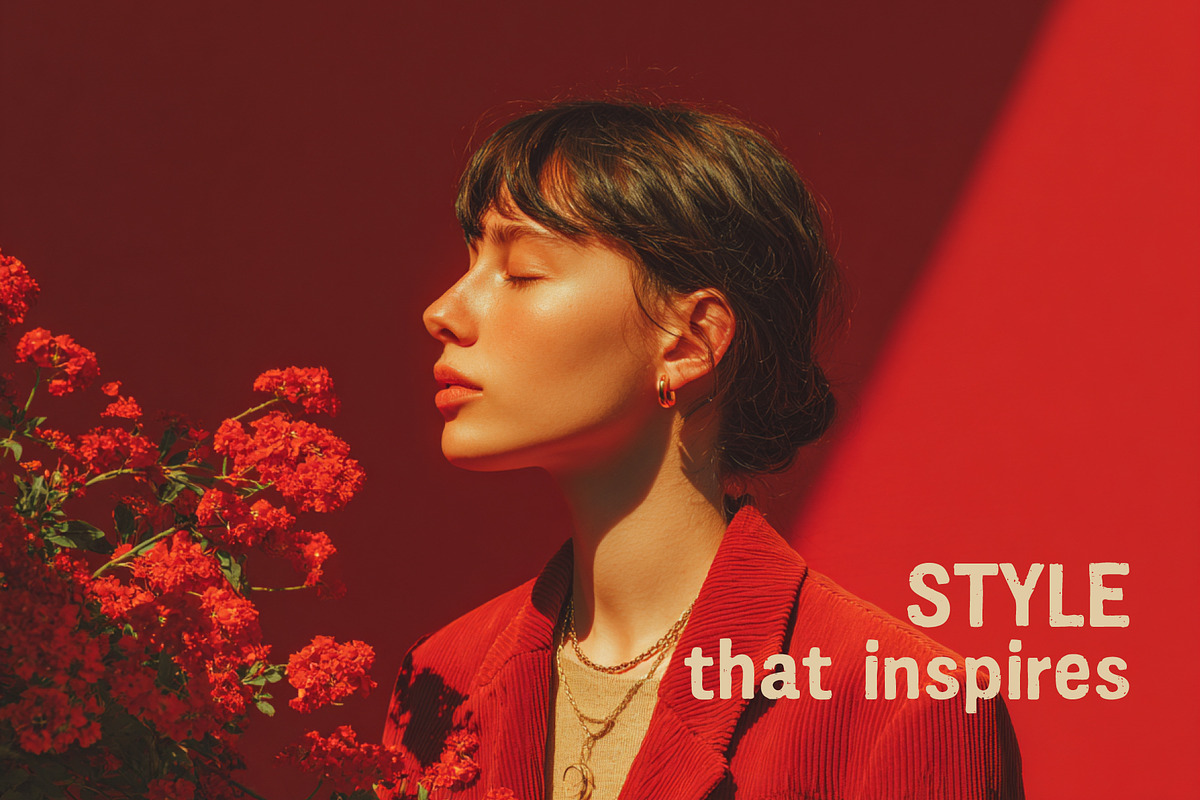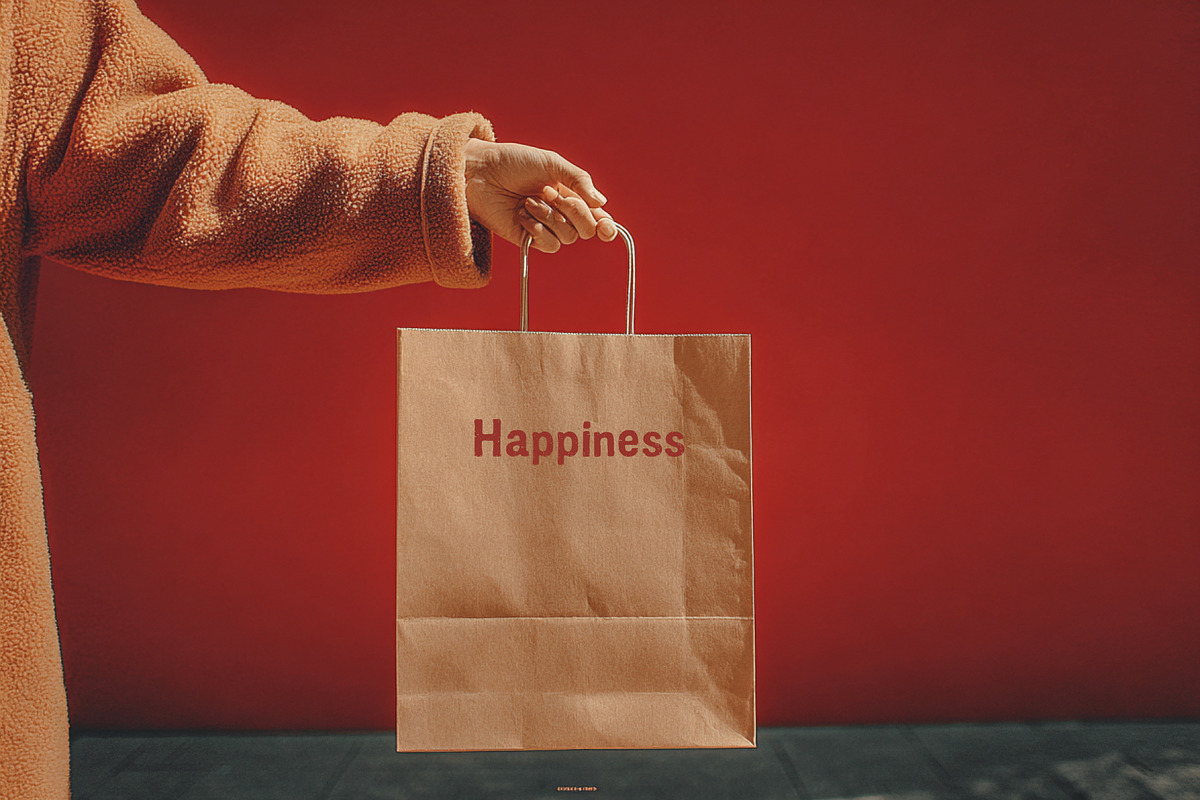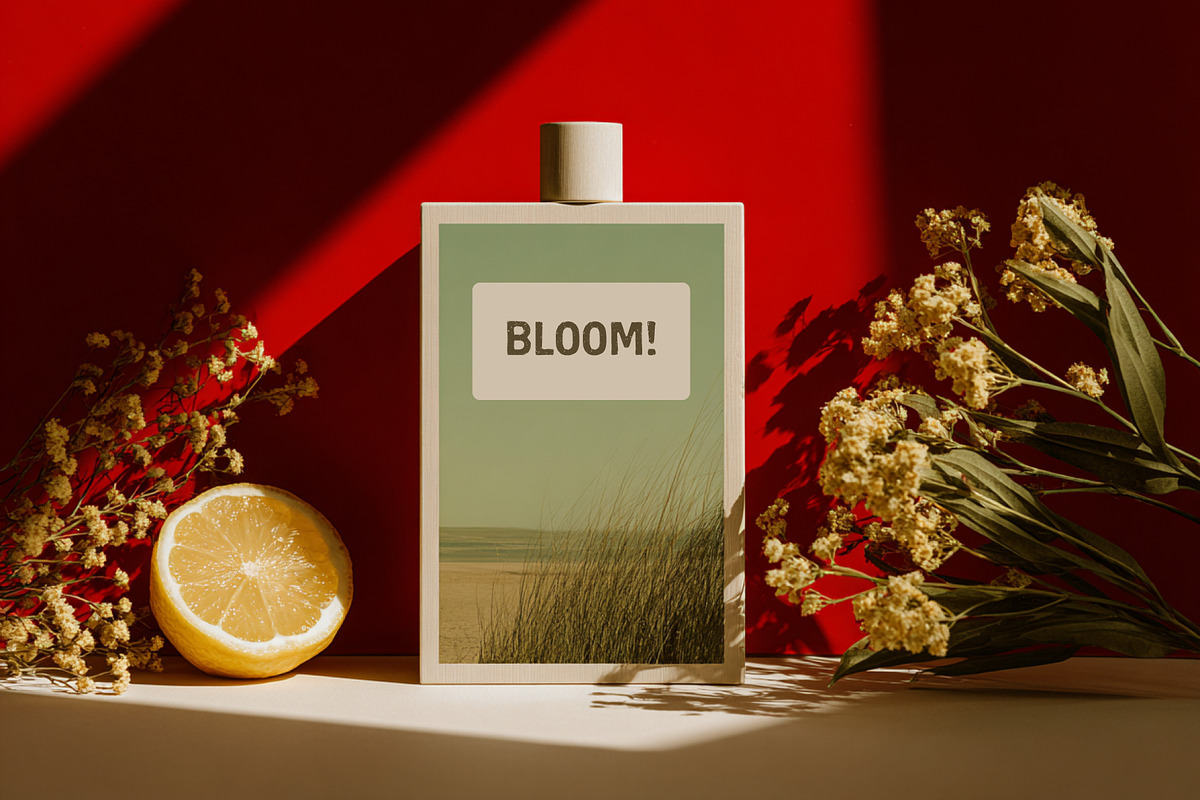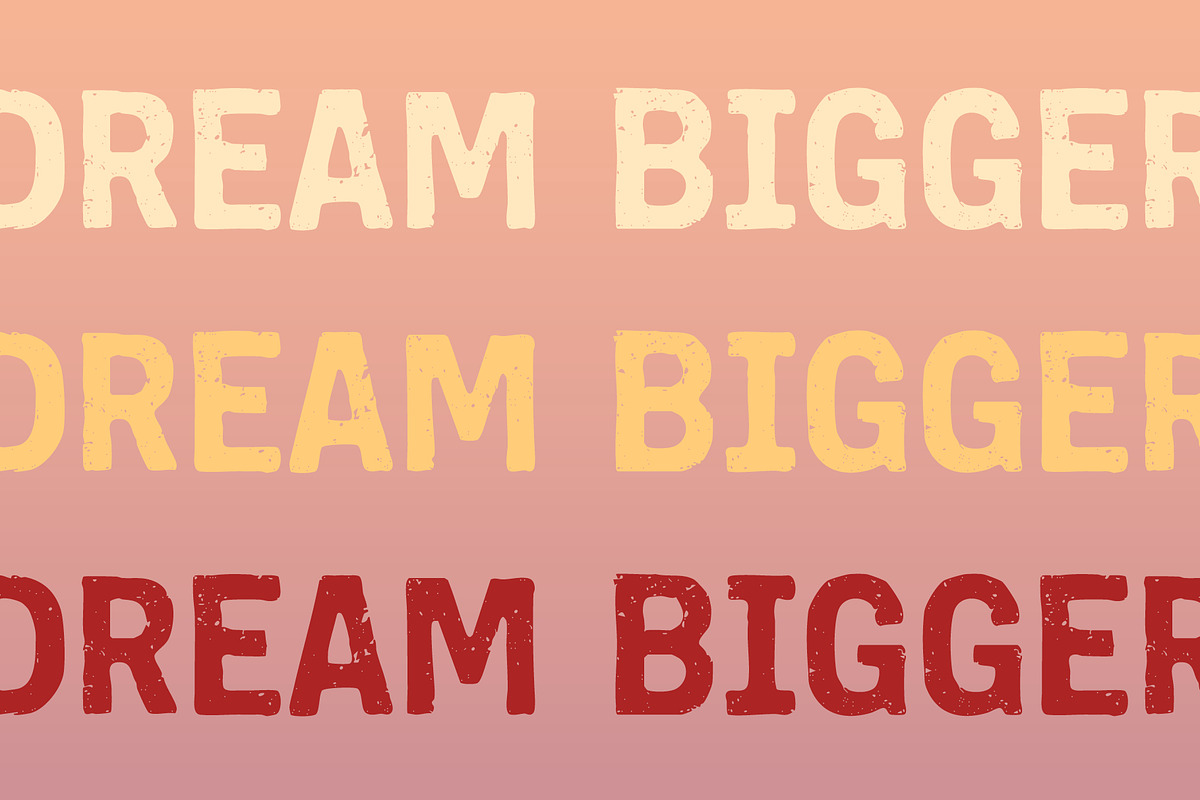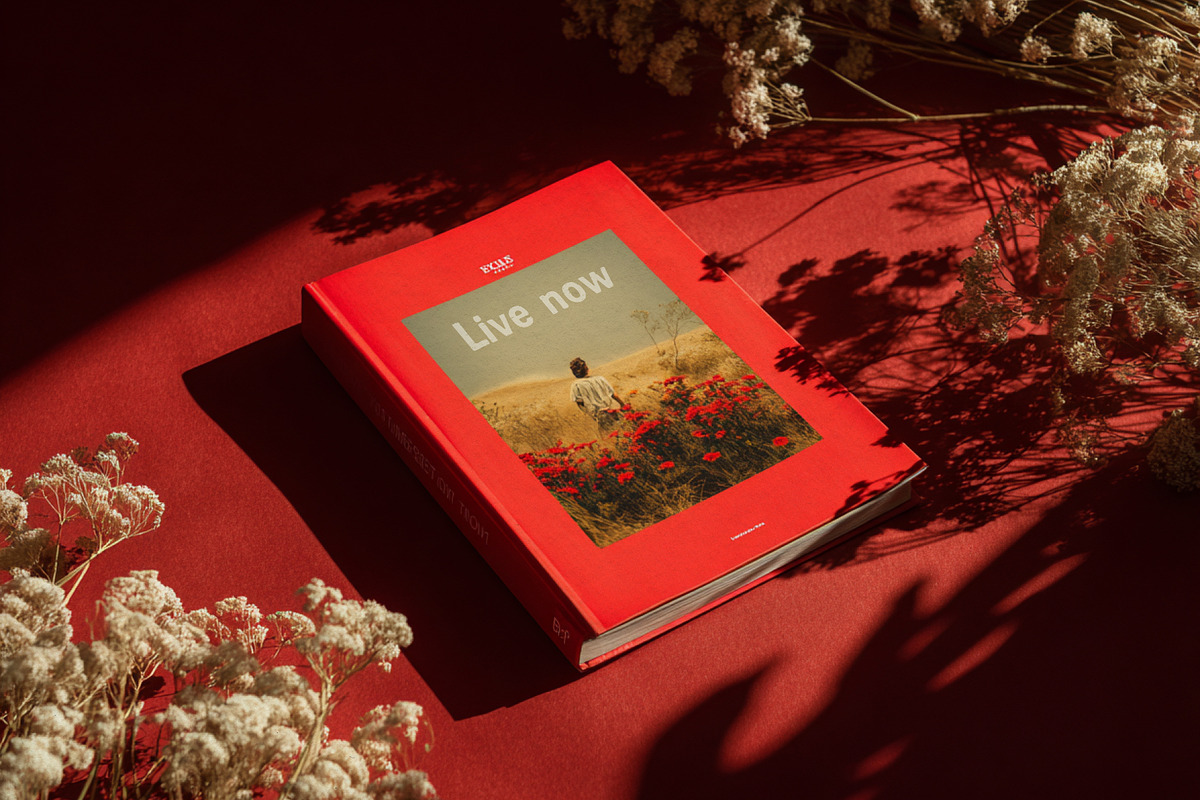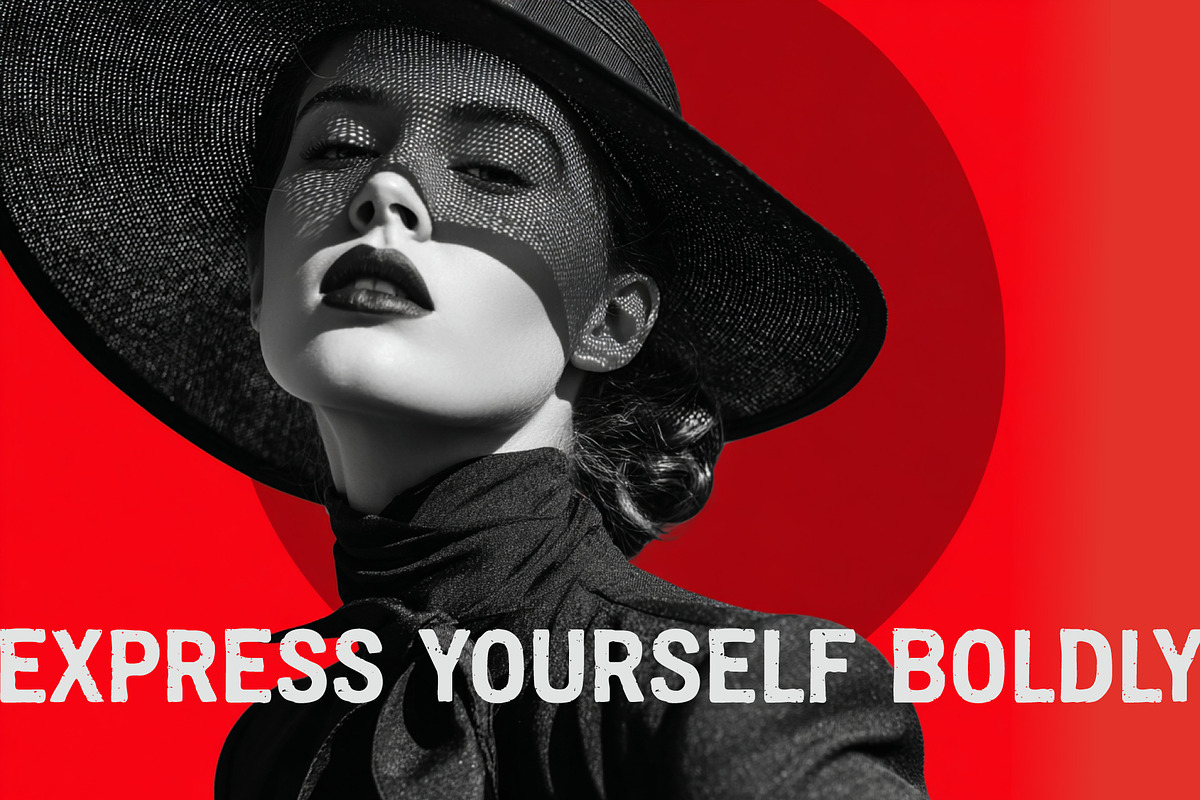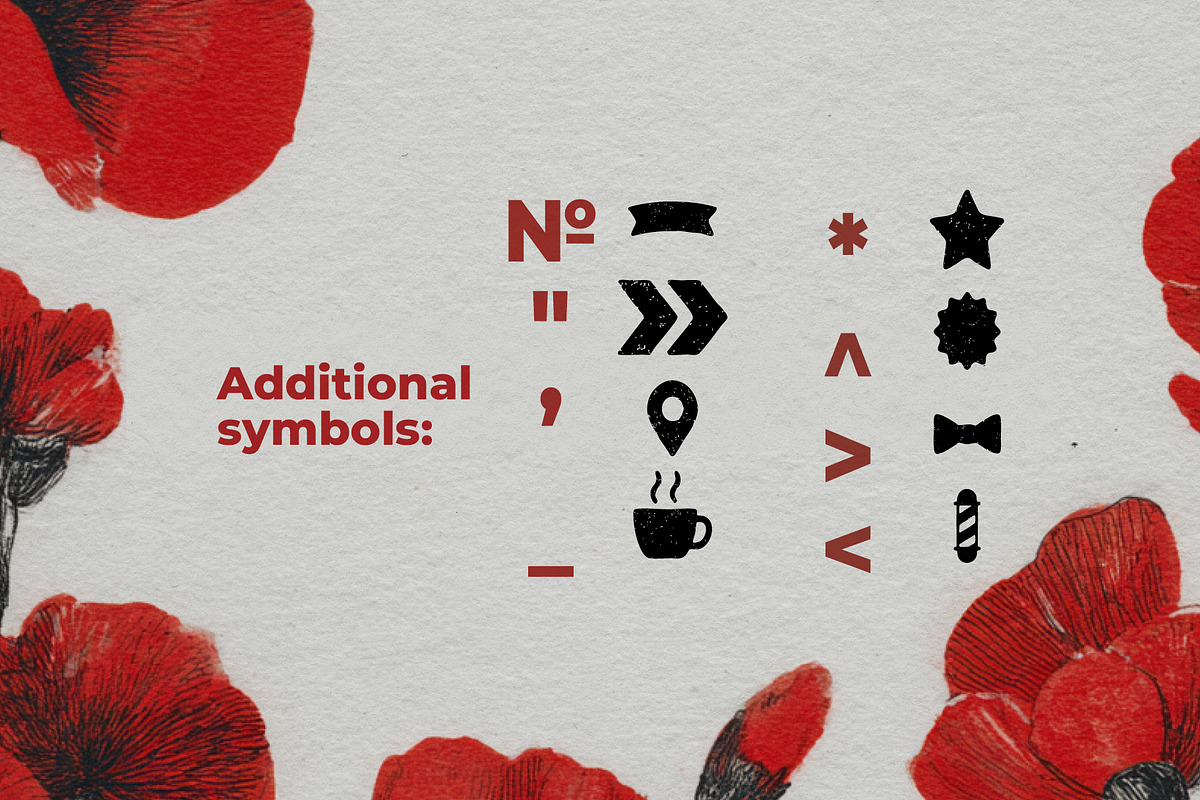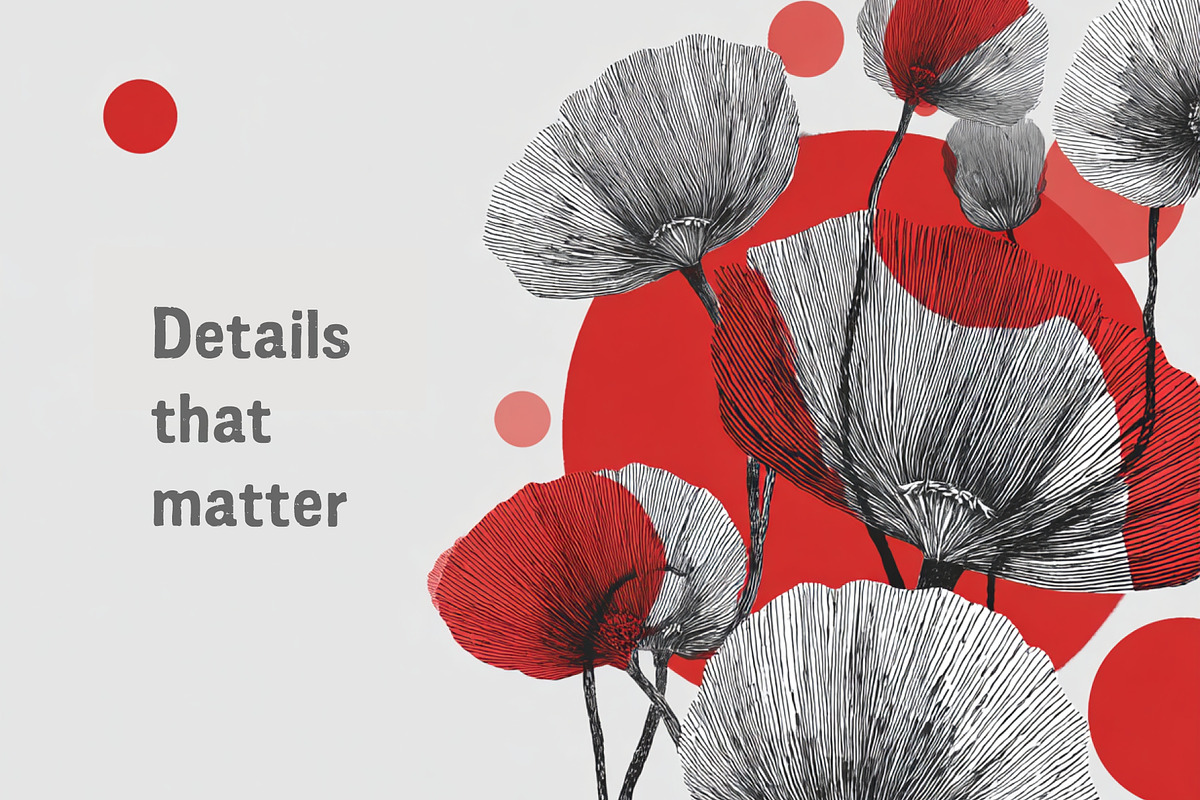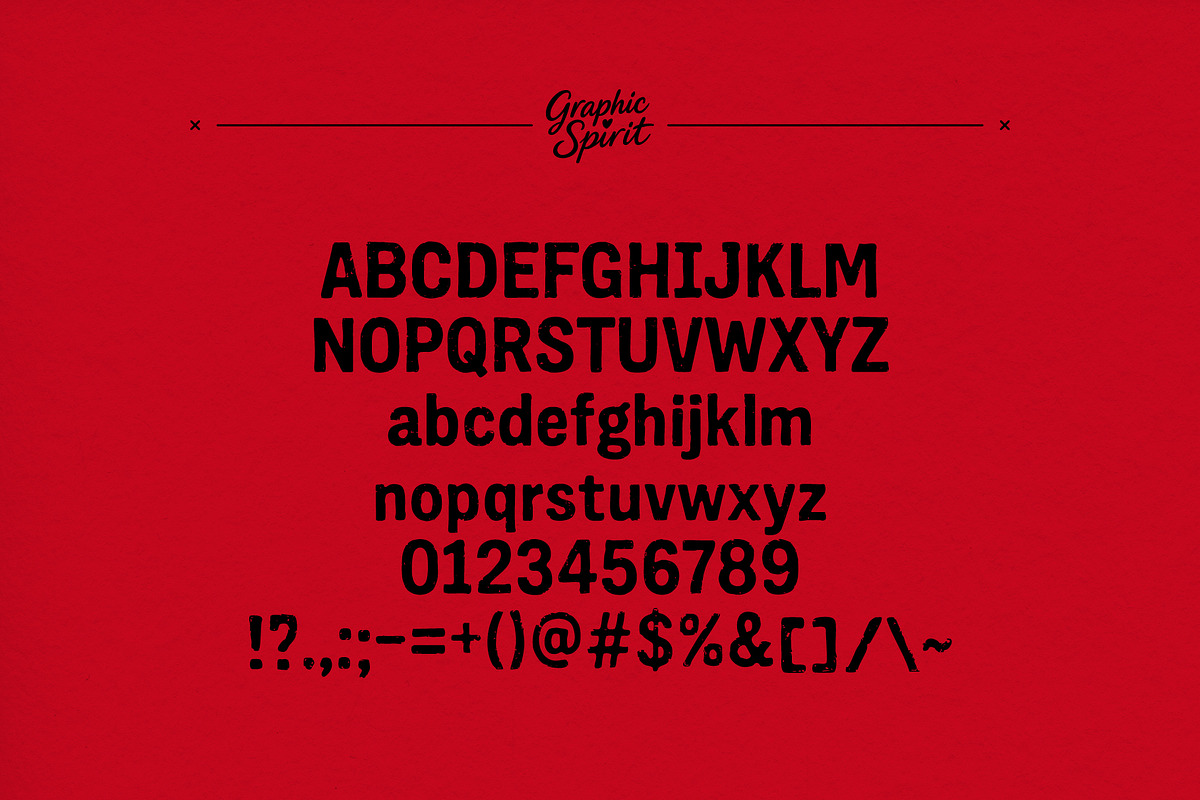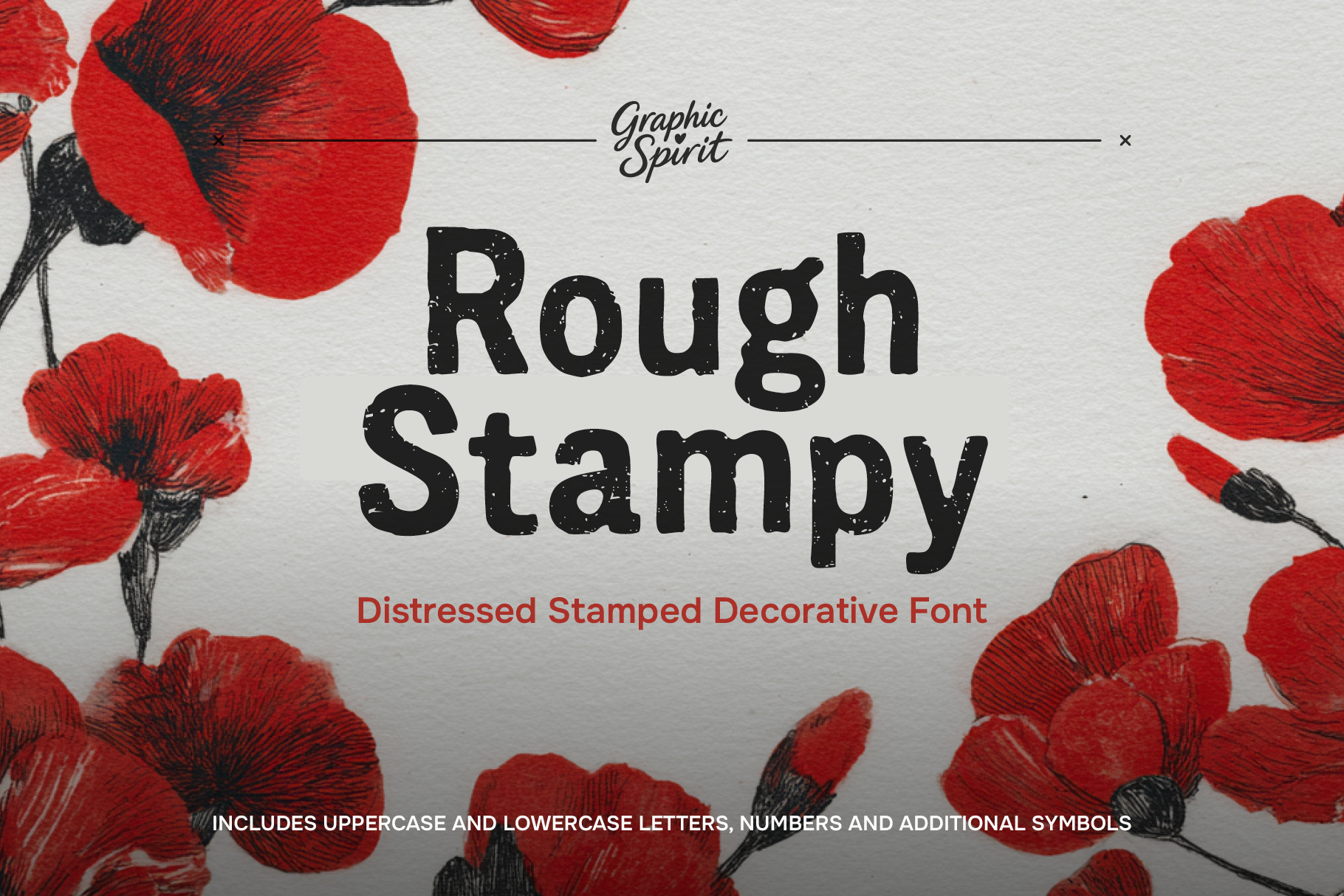
Rough Stampy Distressed Stamped Font
✨ Unlock the raw, authentic charm of handcrafted typography with Rough Stampy! This distressed decorative font features gritty textures, uneven impressions, and a uniquely rugged aesthetic that mimics traditional stamping. Perfect for adding a touch of vintage personality and tangible warmth to your projects, from logos and branding to wedding invitations and social media graphics.